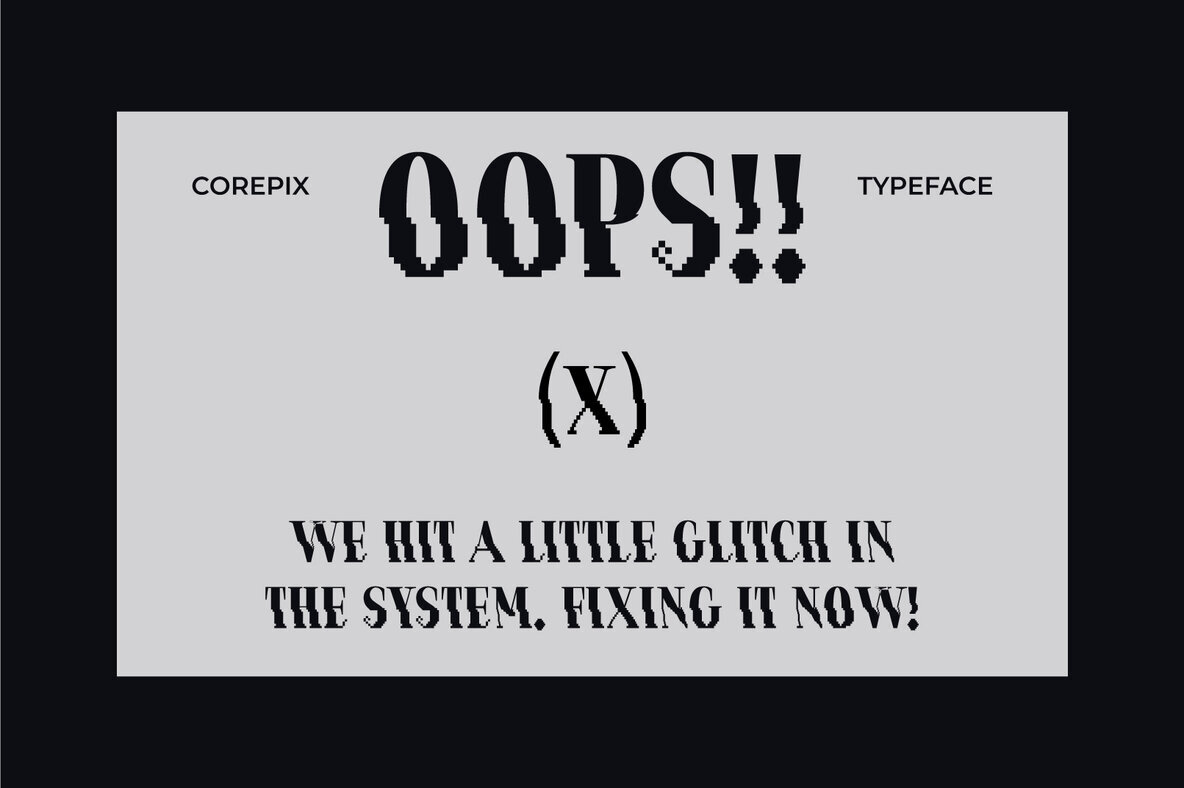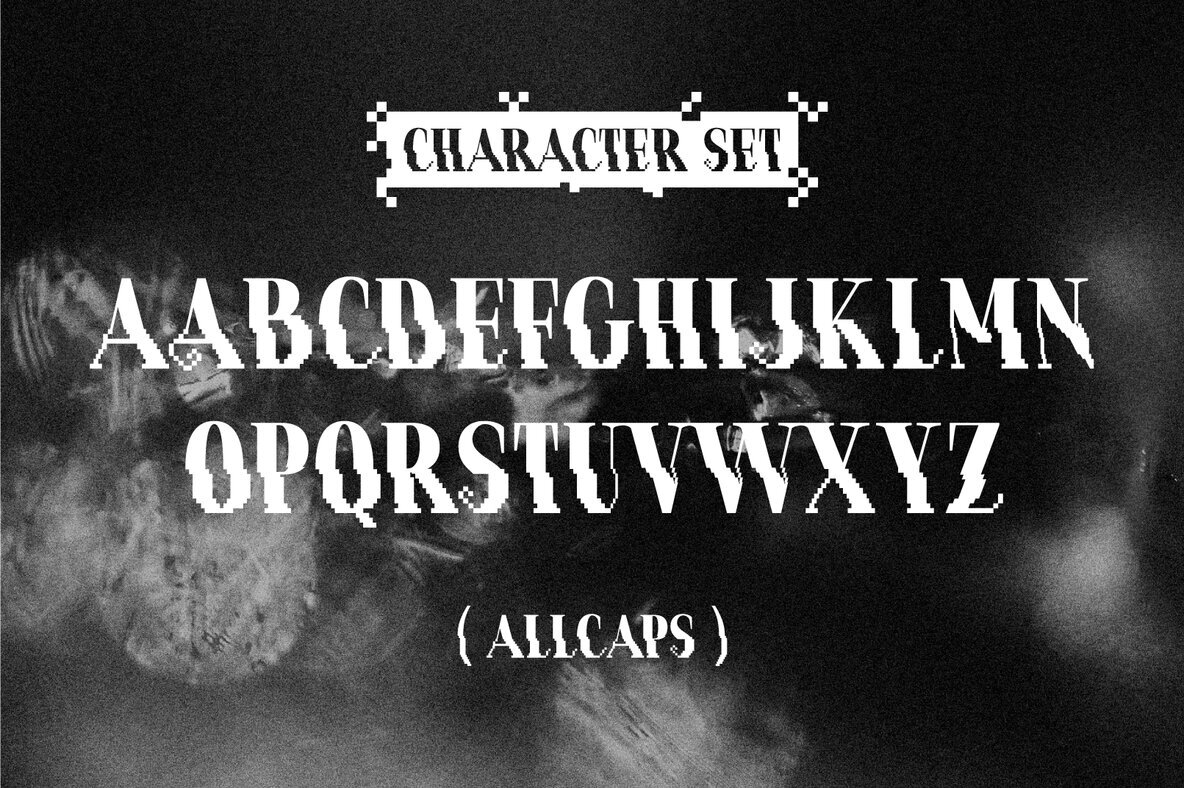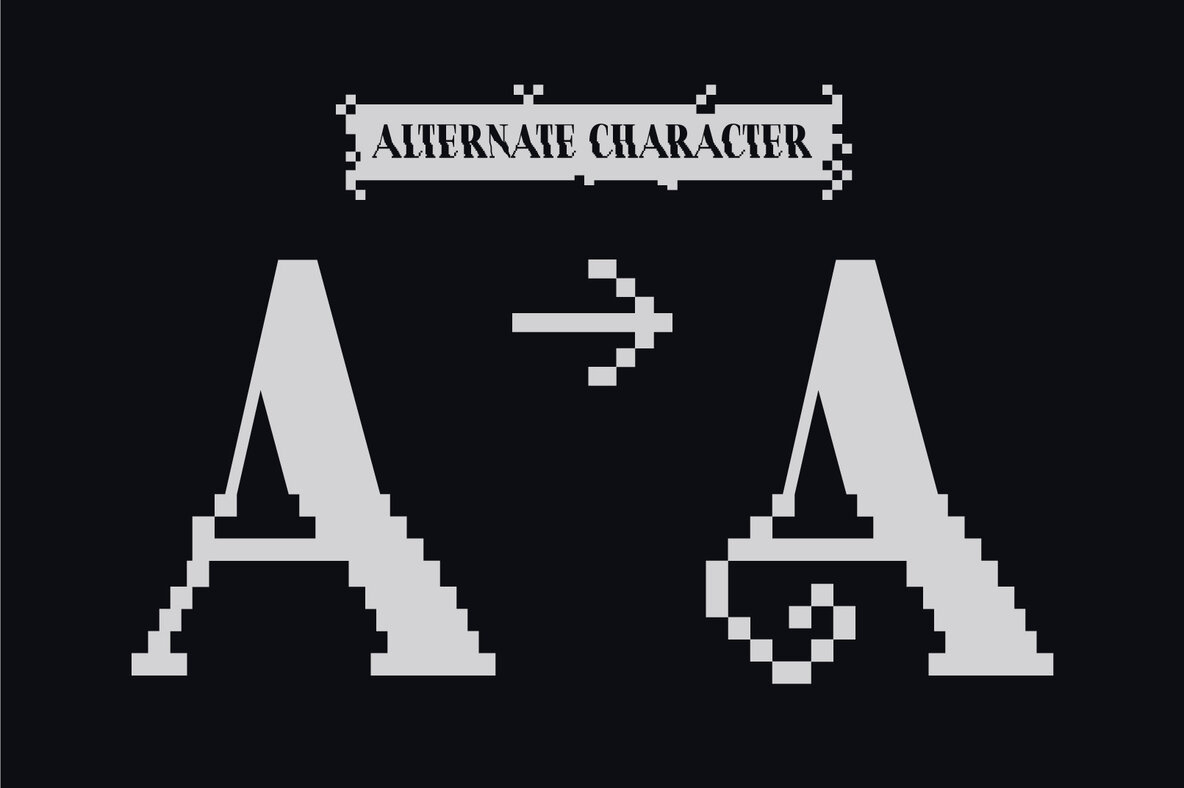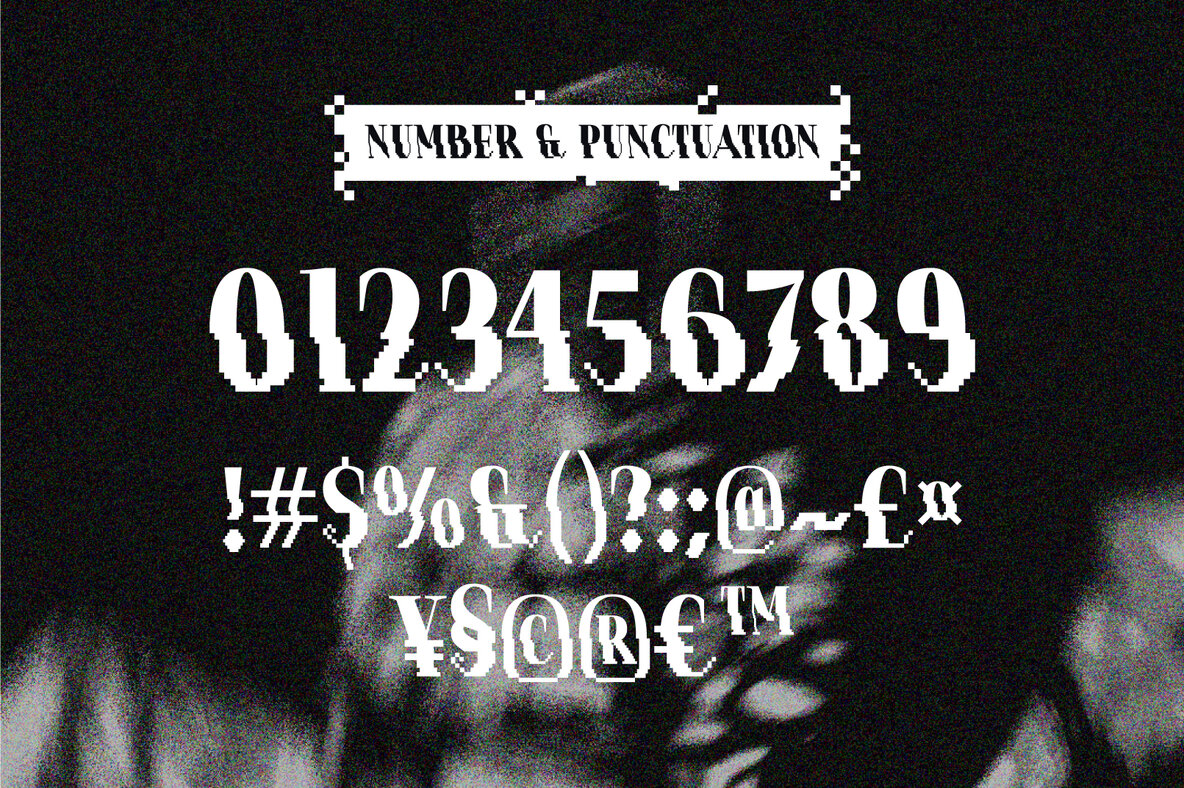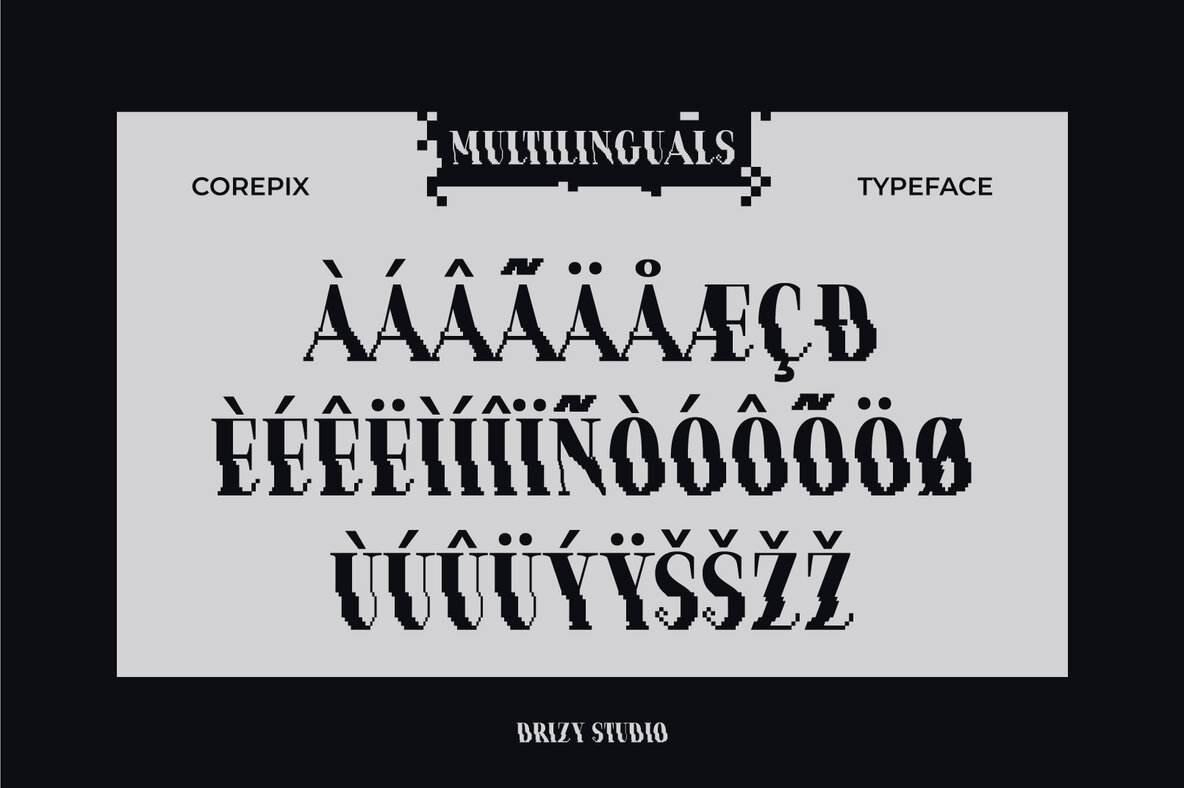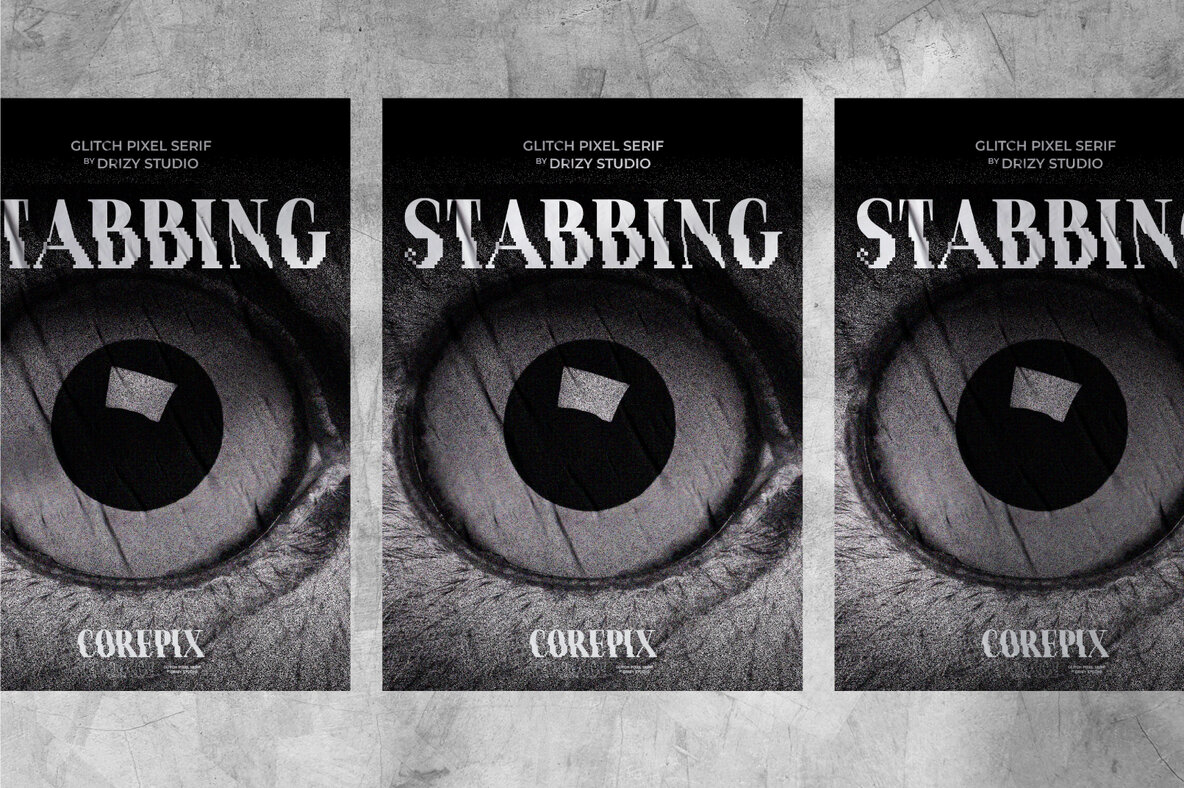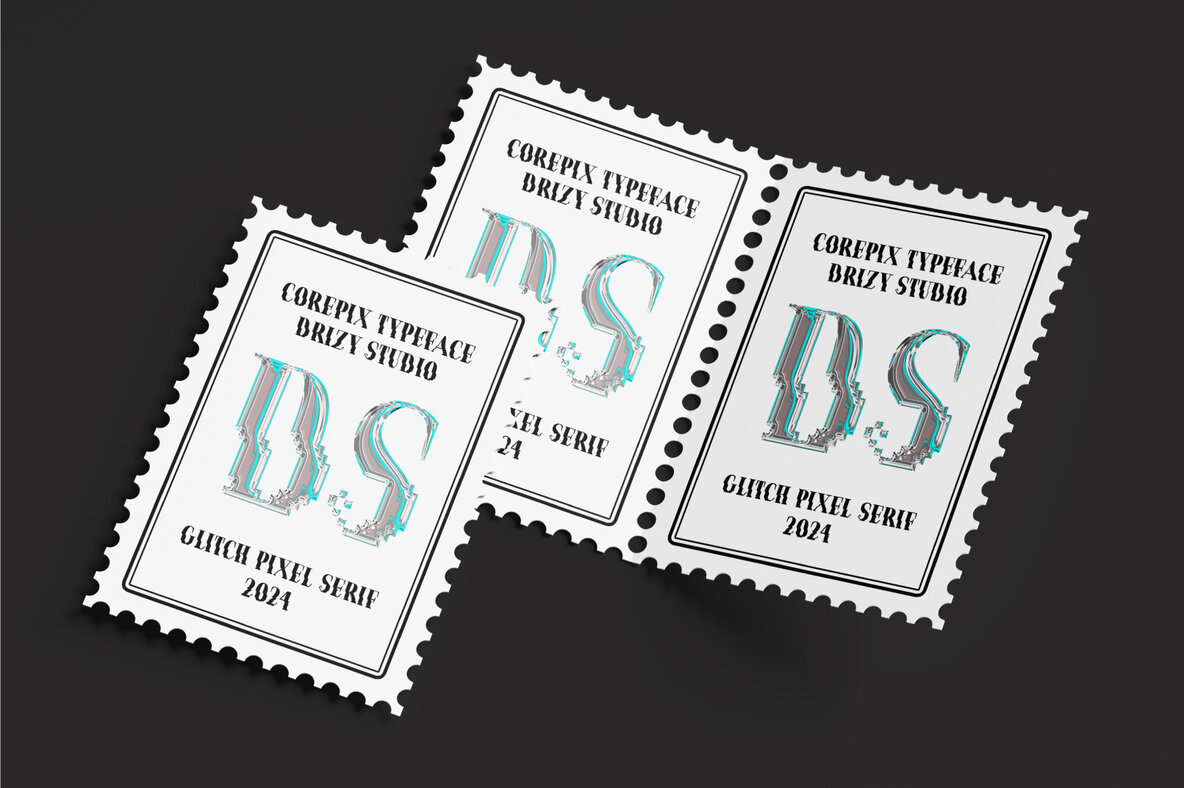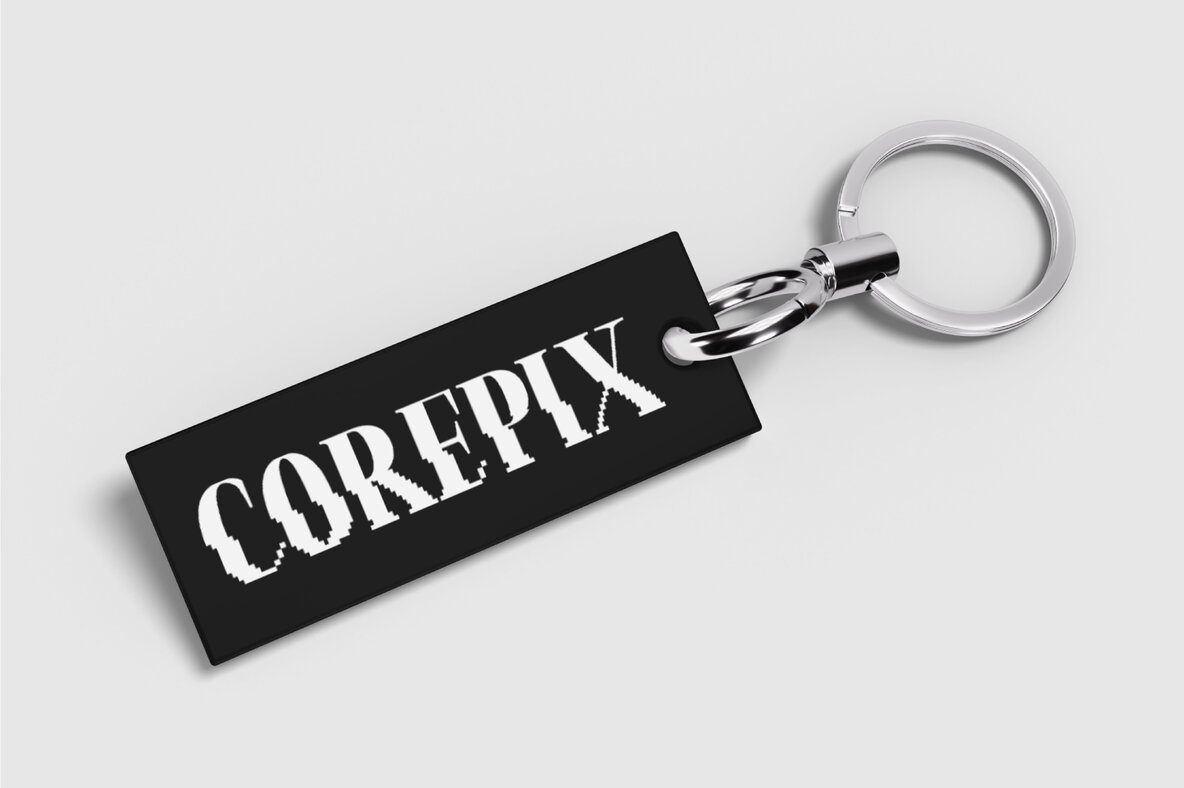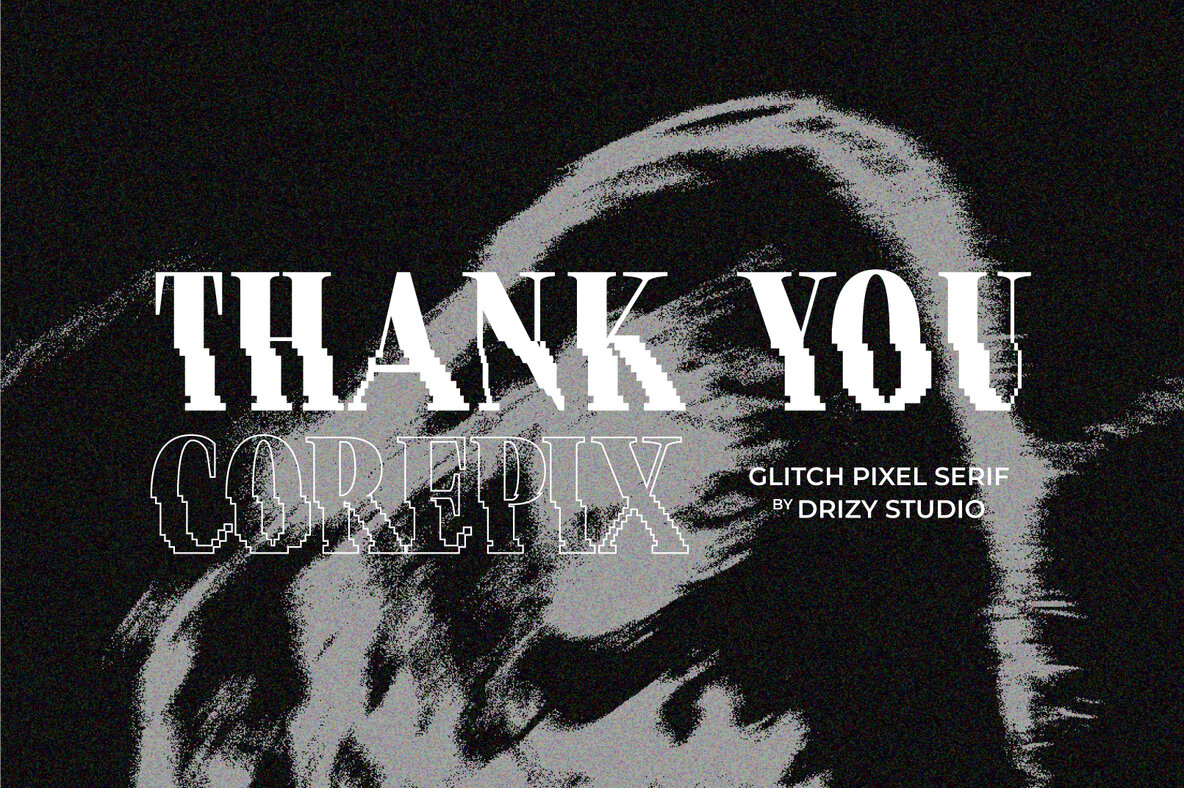
Corepix Font
Corepix Regular
Introducing Corepix – Glitch Pixel Serif Font, a cutting-edge and visually striking typeface that seamlessly combines the classic elegance of a serif font with a modern twist of glitchy pixel aesthetics. This Collide – Experimental results in a font that stands out, making it perfect for projects that demand a bold and contemporary look.